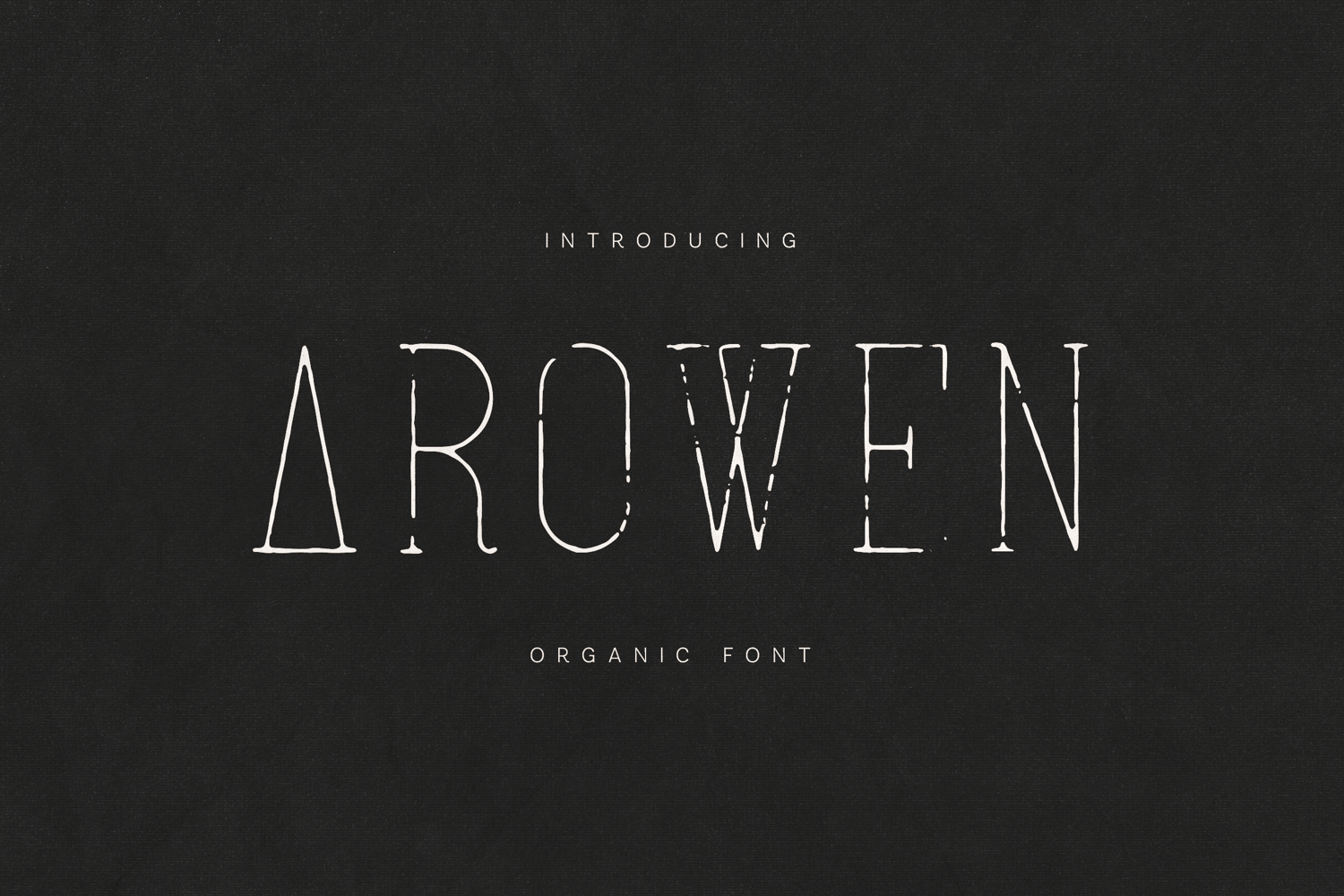
Arowen Organic Serif Font
Arowen is an organic serif font inspired by raw materials, natural textures, and imperfect craftsmanship. Featuring distressed details, uneven strokes, and handcrafted character, Arowen brings warmth, emotion, and authenticity to typography.
Designed for posters, branding, album artwork, book covers, packaging, editorial headlines, and expressive visual storytelling, Arowen excels where personality matters more than polish. Its textured letterforms feel tactile and alive, creating a strong visual presence without feeling aggressive or chaotic.
Arowen works best at medium to large sizes, where its organic imperfections and natural rhythm can fully shine. It pairs beautifully with clean sans serifs or minimalist layouts, adding contrast and human depth to modern design systems.
The font includes uppercase and lowercase letters, numerals, punctuation, symbols, and extensive multilingual support, making it suitable for professional and international use.
If you’re looking for an organic serif font that feels raw, expressive, and genuinely human, Arowen delivers handcrafted typography with soul.